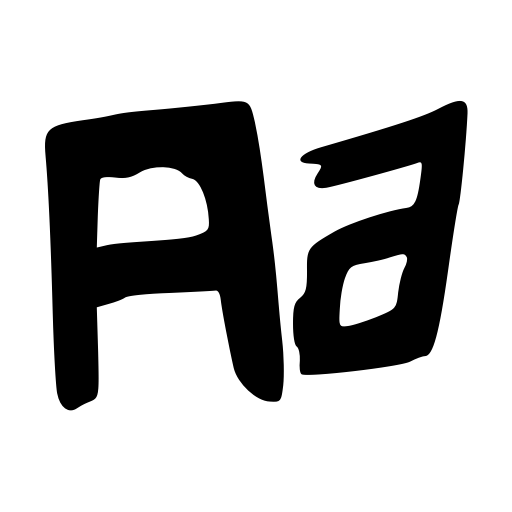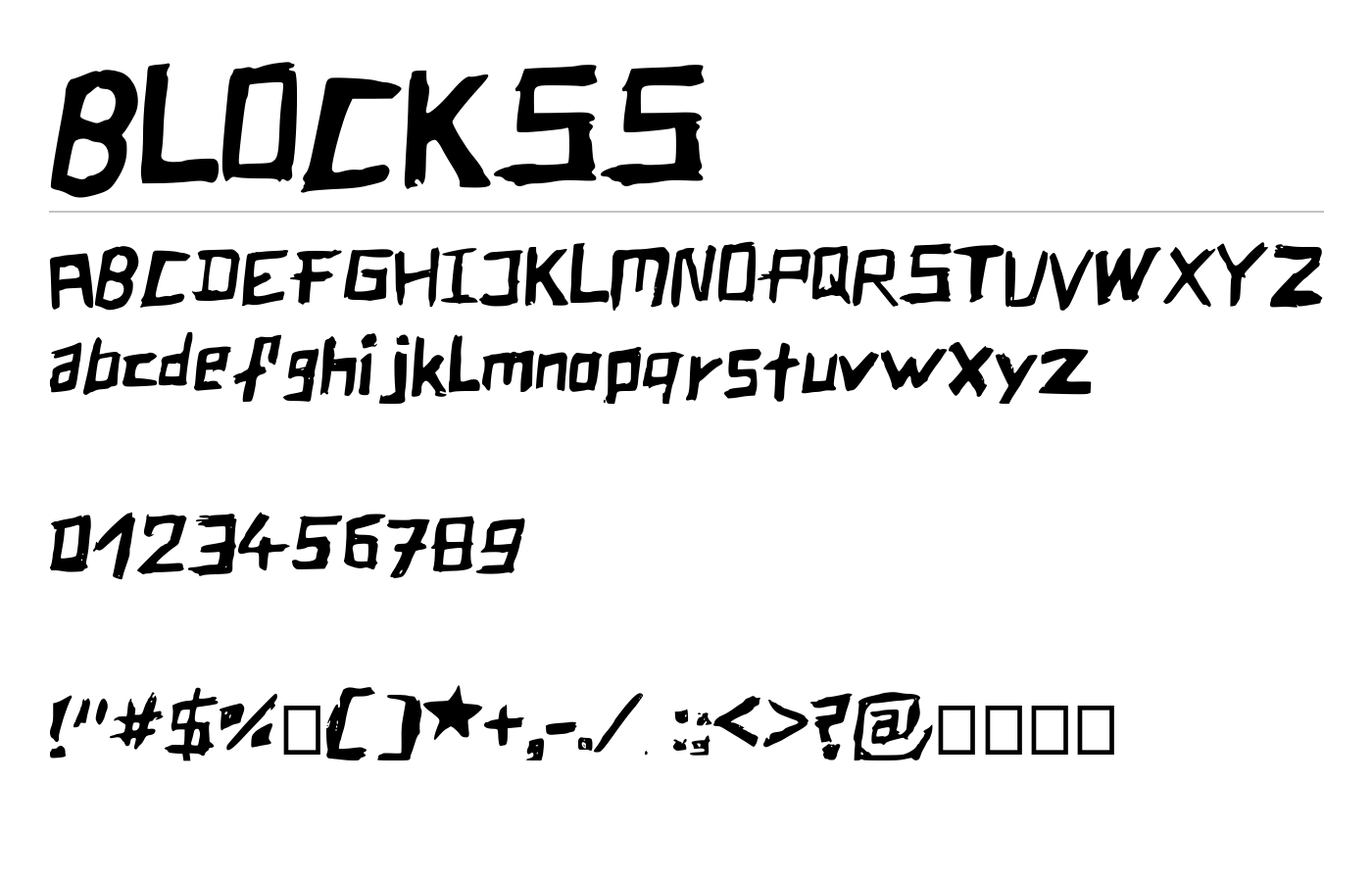
BLOCKSS is a bold, hand-drawn sans serif font featuring irregular, blocky letterforms with a playful and slightly rugged texture. Its uneven strokes and quirky shapes give it a casual, energetic vibe perfect for creative projects, logos, posters, or branding that seeks to stand out with a distinct, informal personality. This font works best in display use where its unique style can grab attention and add a handcrafted, dynamic feel.
BLOCKSS Font